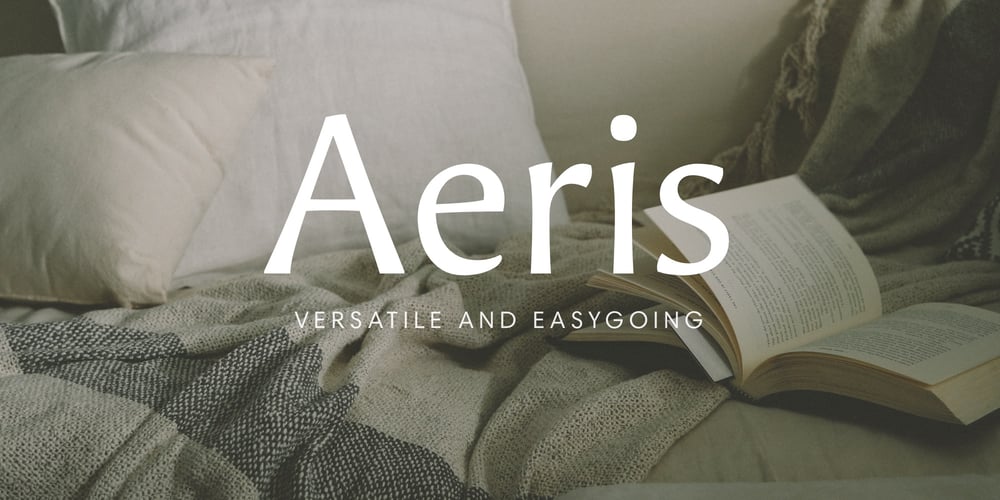
Aeris Font Family was designed by Tom Grace and published by Linotype. Aeris contains 16 styles and family package options. Aeris™ typeface is a contemporary book face created by the American designer Tom Grace. It combines the proportions and rhythm of a sans serif font with the high contrasts and flexed strokes of script faces, while the open counters also ensure optimal legibility. Tom Grace focuses on providing subtle differentiations in his cuts and, as a consequence, this font family has its own individual structure: there are A and B variants of the basic forms regular, italic, bold and bold italic, and a display version for use in titles that also comes in A and B variants. It is advisable to use the A variant for larger font sizes, while the slightly more emphasized B variant can be recommended for smaller font sizes. Where the basic forms are to be mixed together in a work, it is important to use the corresponding A/B variants throughout as their designs have been carefully coordinated. Aeris is available in the OpenType Pro format and thus includes a wide range of different glyphs. The font family can be used in various environments, such as books, magazines, advertisements and promotional materials, but it is also the perfect choice for printed corporate documentation.